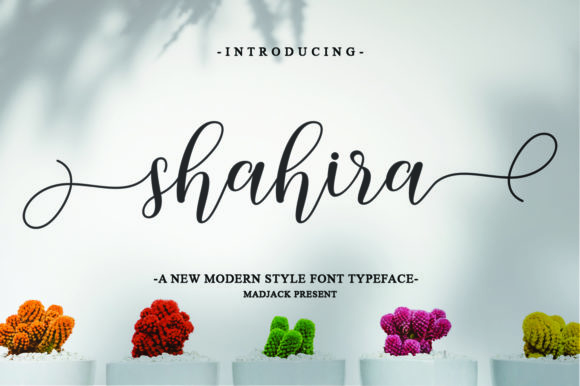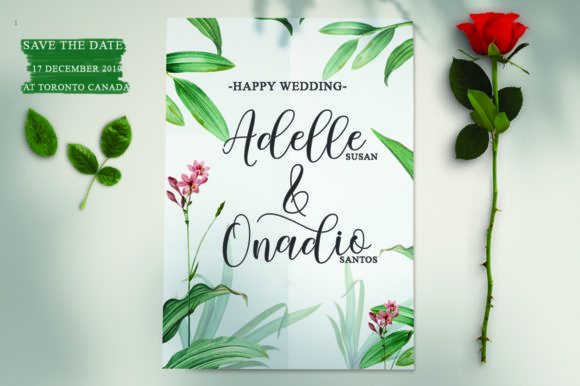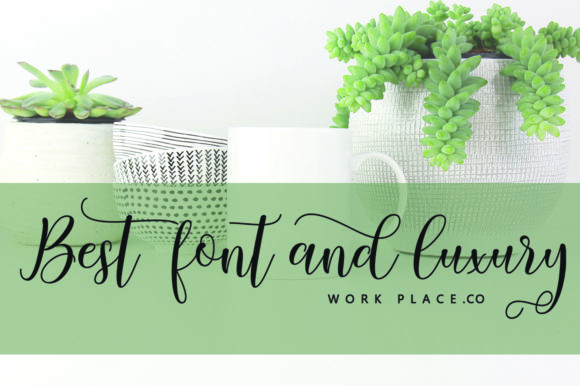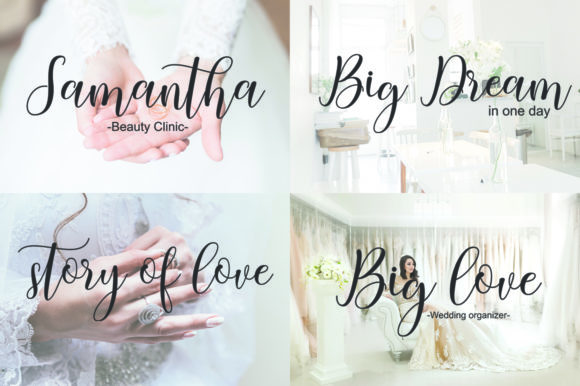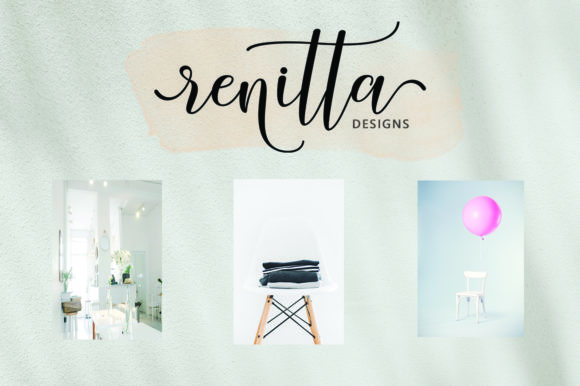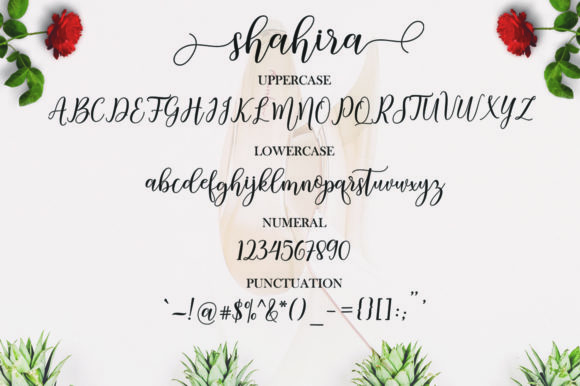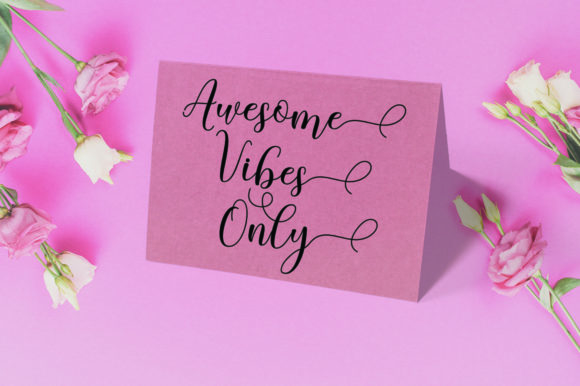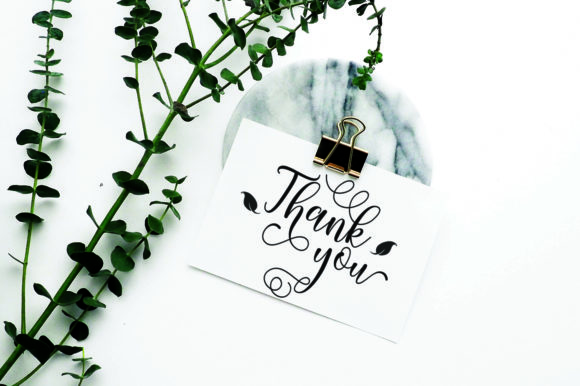
HomeScript FontsShahira Font Script Fonts Shahira Font FacebookXPinterestWhatsApp Shahira Font Poster 2 Shahira Font Poster 3 Shahira Font Poster 4 Shahira Font Poster 5 Shahira Font Poster 6 Shahira Font Poster 7 Shahira Font Poster 8 About Shahira Font Shahira is a bold and modern script font with amazing swashes. Get inspired by its authentic look! DOWNLOAD ON CREATIVE FABRICAThis font is sold and delivered by Creative Fabrica. Font Canyon may earn a commission if you buy through this link. People also explored Obligod Outline Thin Font Kaukasus Font Density Font Bangstyle Font Black Zone Font Bolivia Script Summer Macaron Font Loveletter Font Milky Cream Font 317 0 TagsShahira Font Previous articleChindy FontNext articleAyappe Font LEAVE A REPLY Cancel reply Comment: Please enter your comment! Name:* Please enter your name here Email:* You have entered an incorrect email address! Please enter your email address here Website: Save my name, email, and website in this browser for the next time I comment. Personal Use Free BD Alm Personal Use Free Read more about this font Carved Wood Personal Use Free Read more about this font Leadent Script Personal Use Free Read more about this font Vogue Font Personal Use Free Read more about this font BLOG Free vs Paid Fonts: Why Investing in Premium Fonts Is Worth It Free vs Paid Fonts: Why Premium Fonts Are Worth It in 2025 The debate of free vs paid fonts continues in the design world. While... Using Fonts in Digital Marketing: Tips to Strengthen Your Brand Identity Modern Sans-Serif Fonts That Brands Love in 2025 Free Fonts Risk: Why Free Fonts Can Be Dangerous for Designers